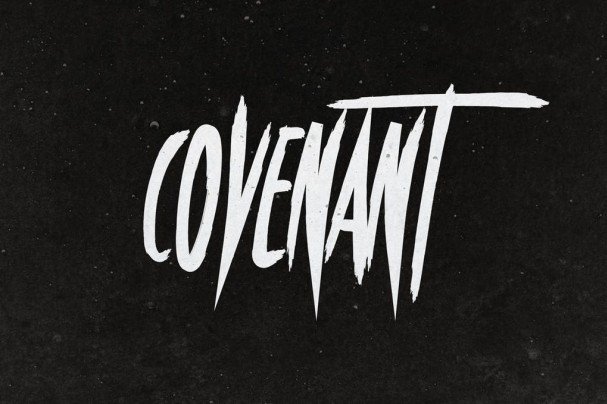
Covenant Font
Covenant Font is a timeless favorite font that resembles the charming calluna font. Using this font will enhance your writing skills and make them more engaging. It is also known as the Krampus font. Discover the magic this font can bring to your work and captivate your audience.
This font has been used anywhere because of the reality that its miles beginning. Its high-quality reputation can be credited to the reality that it is the best brush font available now.